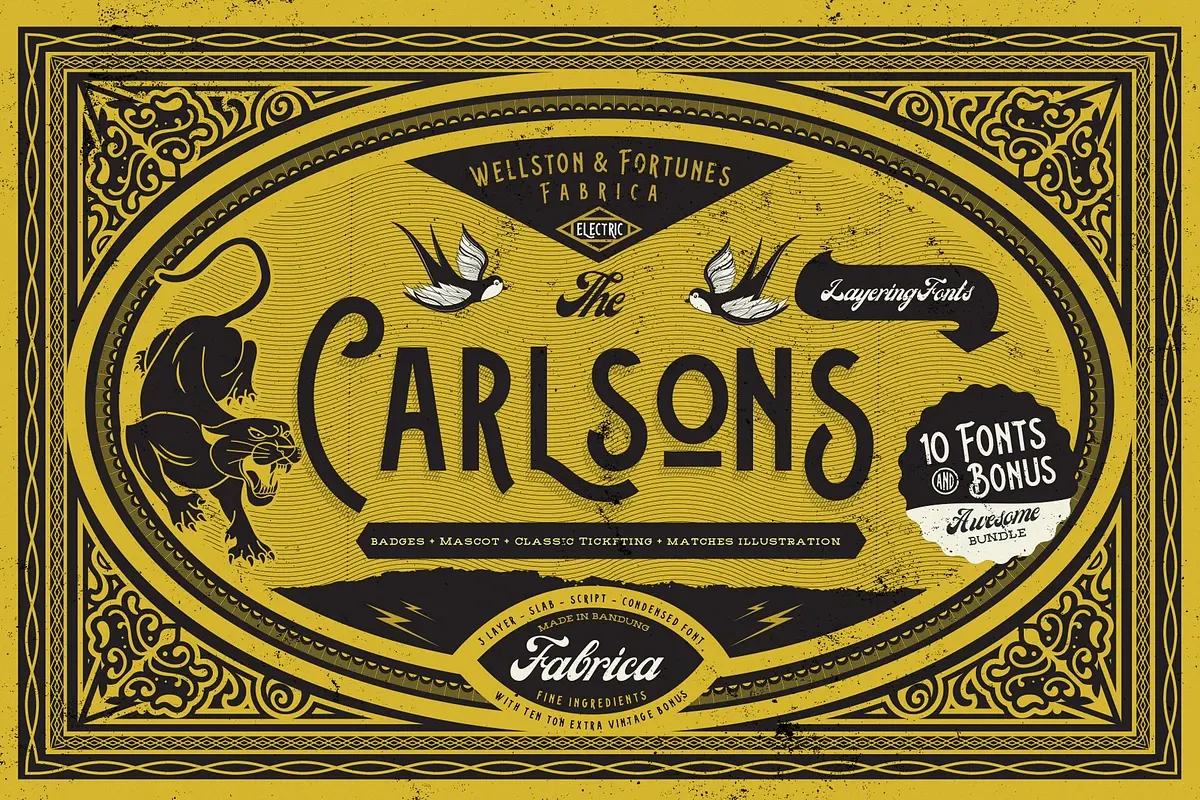
The Carlsons (10 Fonts) + Extras Free Download is a versatile and comprehensive font bundle that includes 10 unique fonts, each designed to give your projects a stylish, professional look. This bundle includes a variety of serif, sans-serif, and display fonts, offering a wide range of choices to suit different design needs.
In addition to the 10 fonts, Carlsons comes with extra design assets, such as decorative elements, swashes, and additional stylistic features, making it perfect for logos, branding, posters, websites, and more.
The bundle includes uppercase and lowercase letters, numbers, punctuation, and multilingual support, providing great flexibility for creative projects.